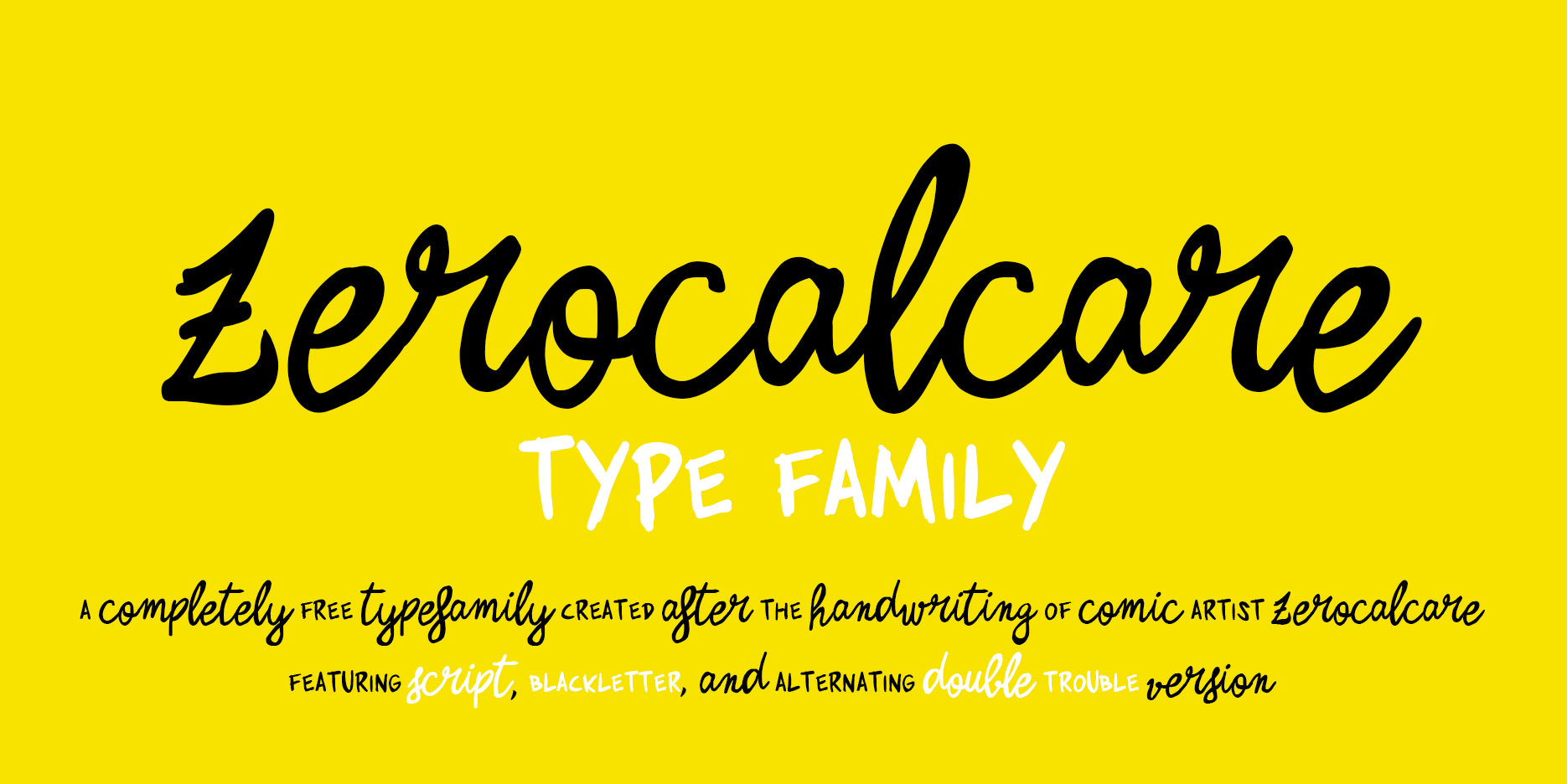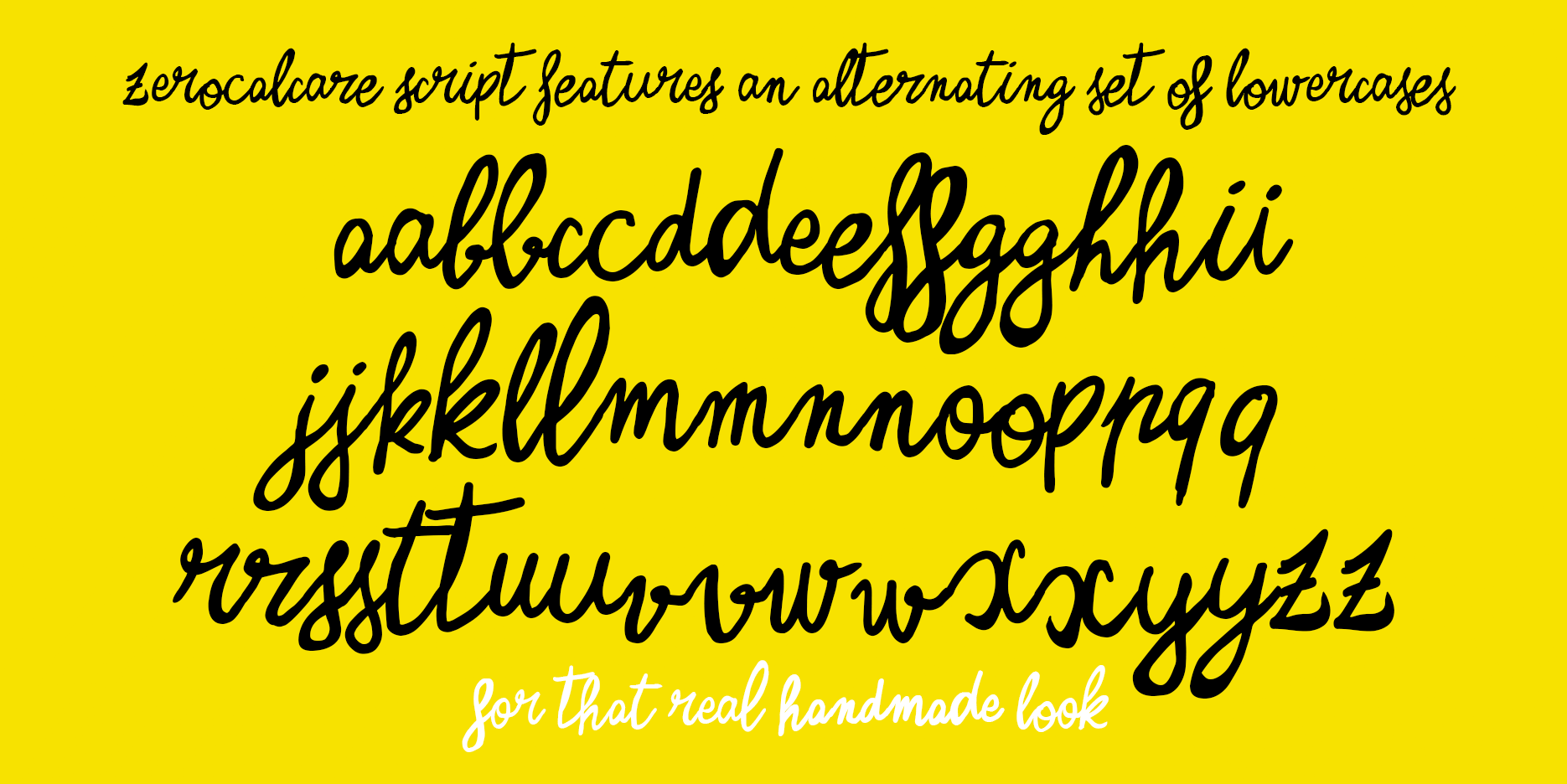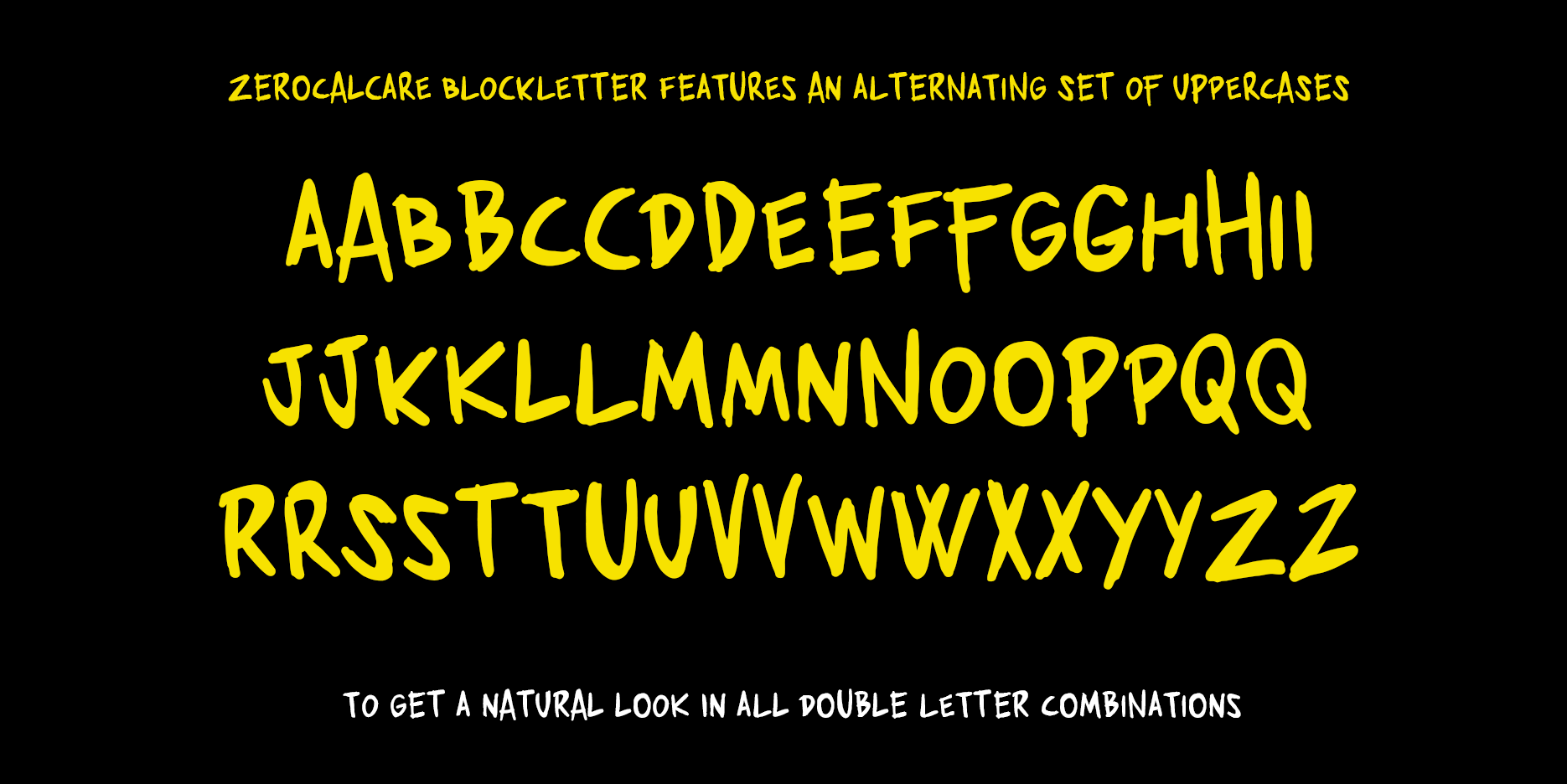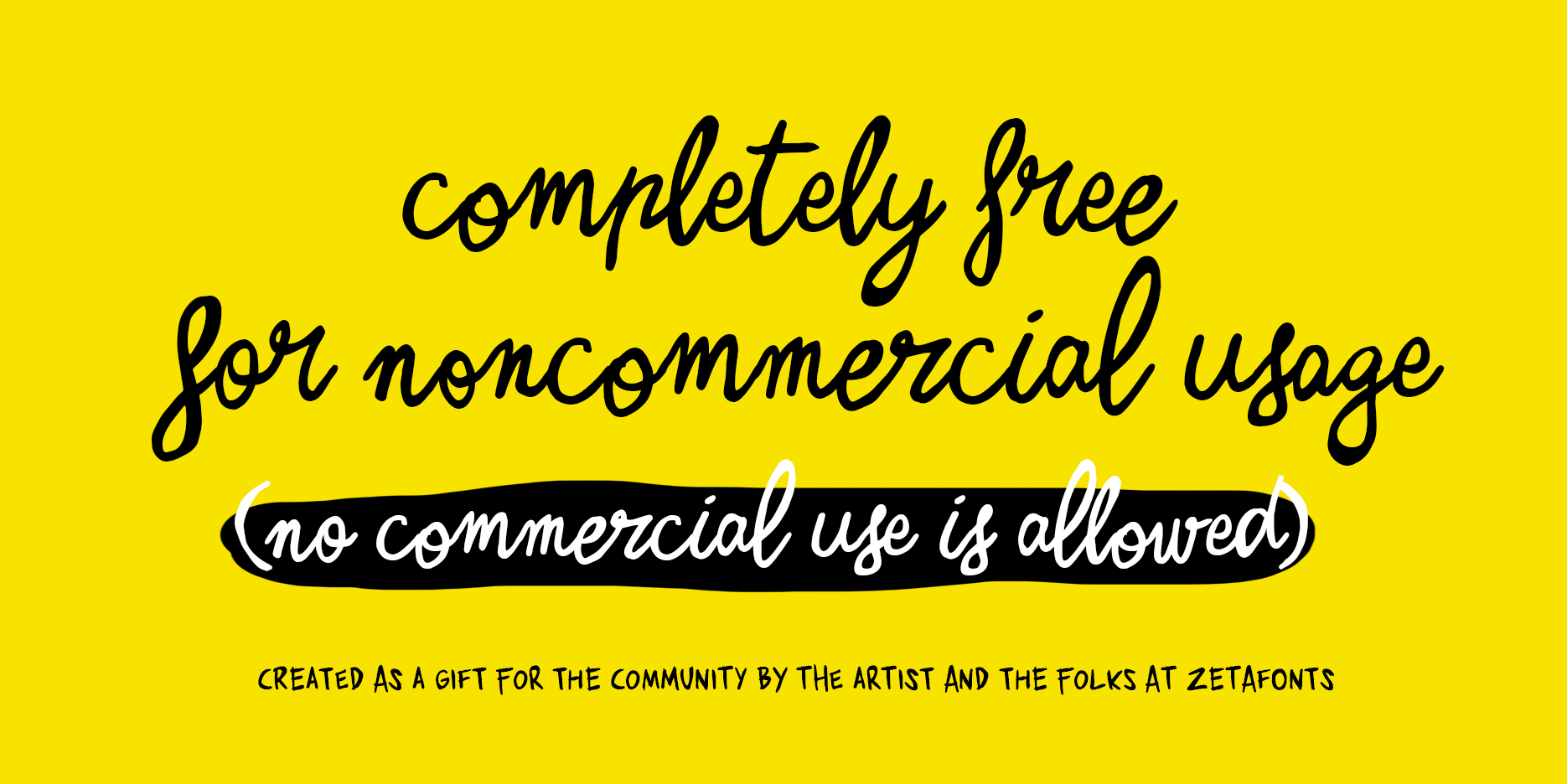
Zerocalcare is a typeface family created for the branding of Lucca Comics & Games Festival 2016. It's based on the digitised handwriting of italian comic artist Zerocalcare, and it uses open type substitutions to mimick the flow of real handwriting. The family has been released under creative commons attribution noncommercial license and it is free for use for any personal, noncommercial project.